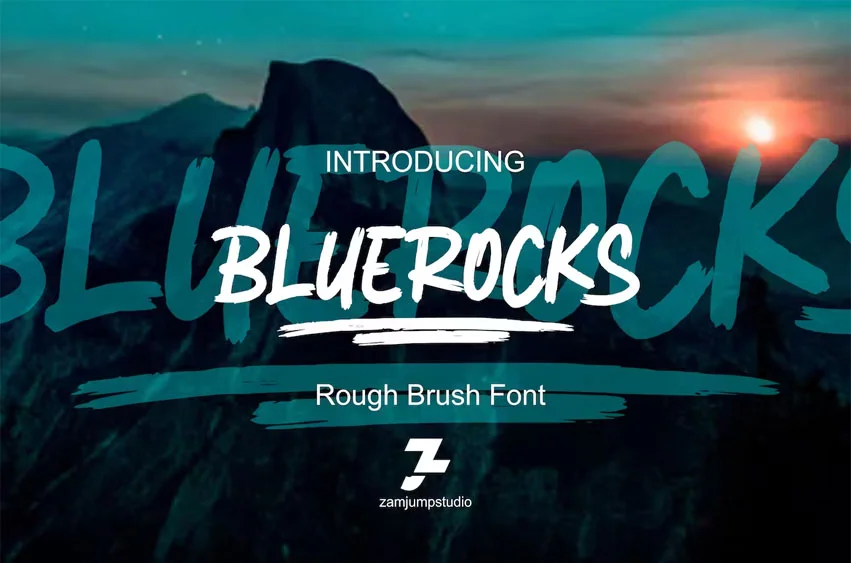
Bluerocks Font
Bluerocks Font is a rough brush font, created by hand, sketched on paper. This font is designed to make your designs or handwriting look louder and bold with ease. Perfect & Ideal for Logos, Quotes, Packaging, Flyers, Posters, Book Covers, Social Media Banners and Event Merchandise Types.
The BLUEROCKS feature comes with Uppercase & Lowercase, Numeral, Punctuation, Swash lines, and also Multi Language Support.
The BLUEROCKS typeface also comes with a Webfont Kit __________________________________________________________________ If you press a_a (a + underscore + a) (a_a / a_b / a_c / a_d / a_e / a_f / a_g / a_h / a_i / a_j then the line swash will come out. I’ve included 10 different line swash types.